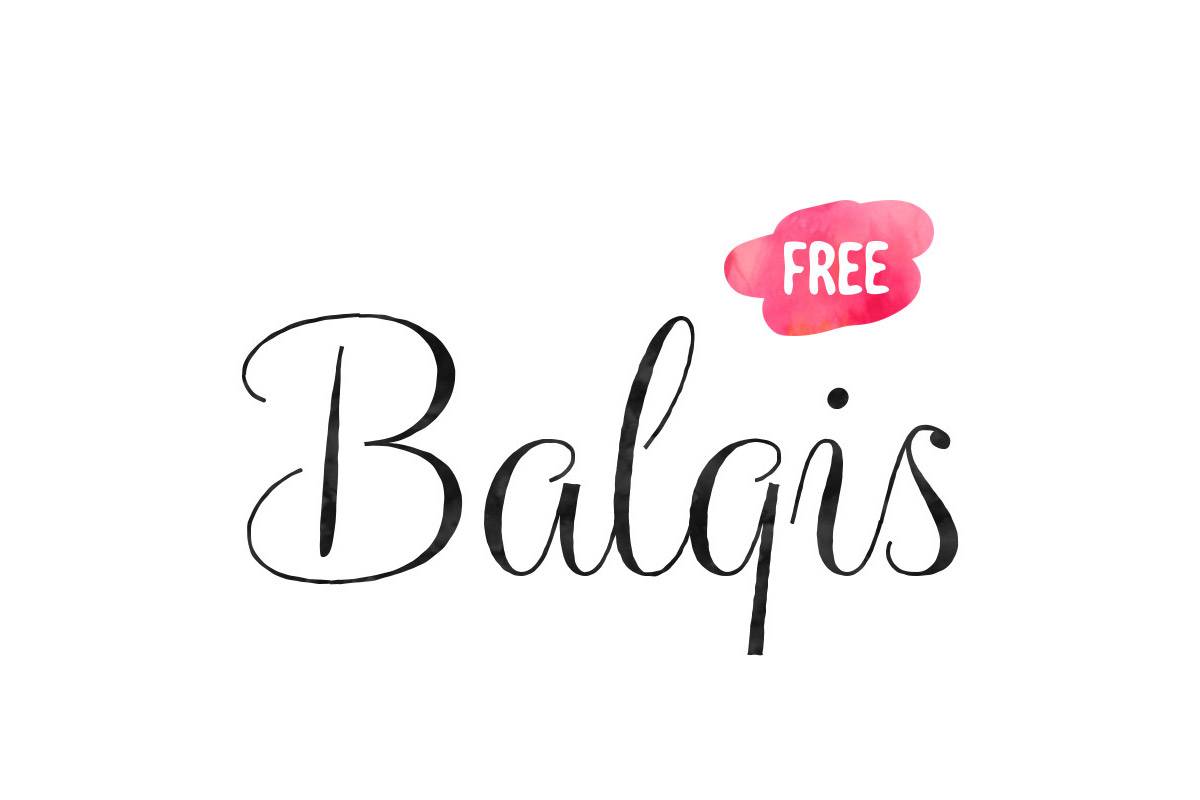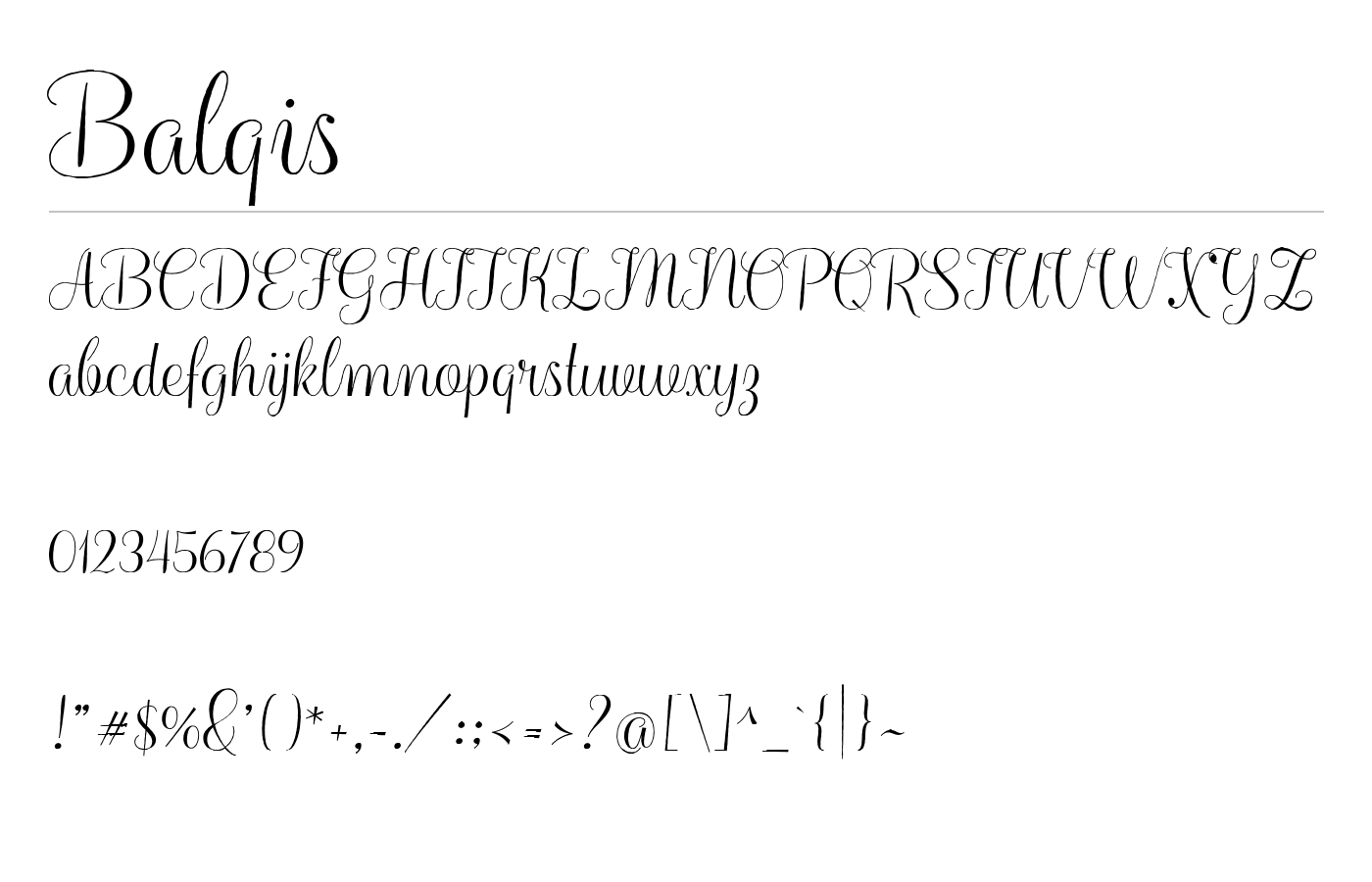
Balqis is an elegant, delicate script font featuring thin, flowing lines and graceful curves that evoke a refined and sophisticated feel. Its tall x-height and slender letterforms with gentle contrast make it ideal for stylish branding, wedding invitations, and upscale editorial design where a light, airy, and feminine touch is desired. This font works beautifully for headlines and decorative text, adding charm and elegance to any project.
Balqis Font
About Balqis Font
| Font family | Balqis Font |
| Release date | 2015-05-26 |
| Designer | Artimasa |